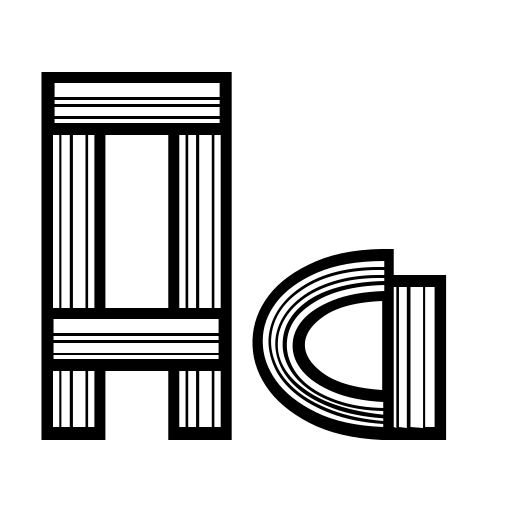
Bees Tracks is a unique, decorative sans serif font characterized by its geometric, layered strokes that create a bold, striped effect. Its playful and artistic style lends a modern, quirky personality, making it ideal for eye-catching headlines, posters, or creative branding projects that want to stand out with a distinctive, handcrafted feel. This font works best where expressive and unconventional typography is desired to convey creativity and energy.
Bees Tracks_PersonalUseOnly Font
About Bees Tracks_PersonalUseOnly Font
| Font family | Bees Tracks_PersonalUseOnly Font |
| Designer | Gregory Medina ©dcodesign 2022 |